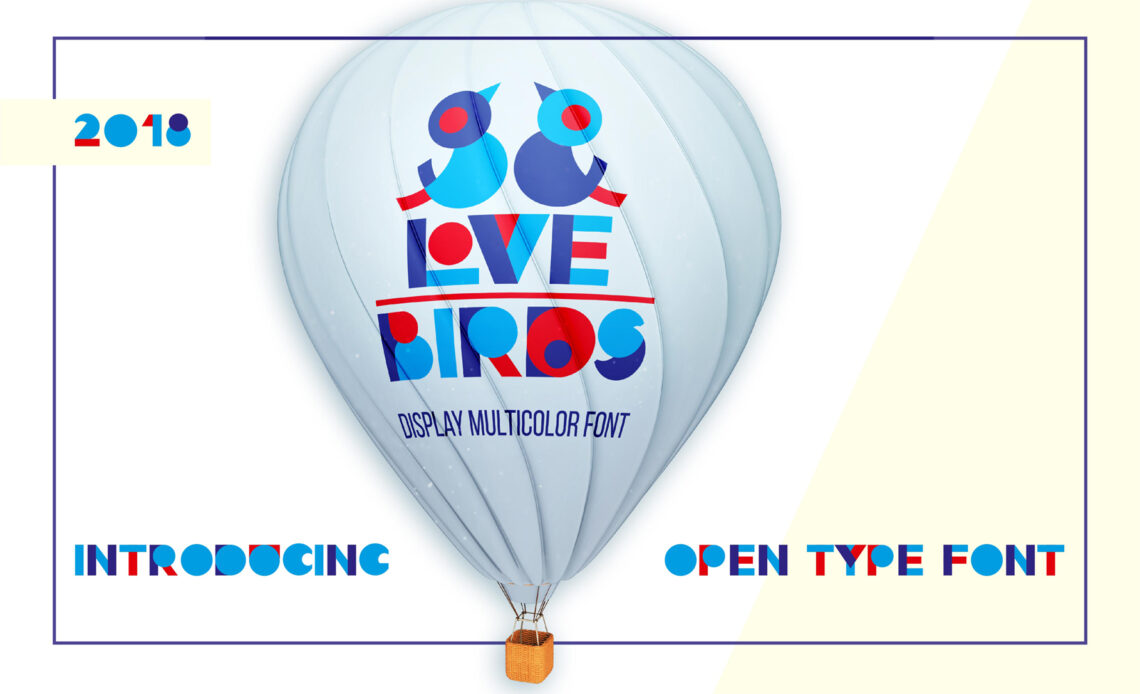
Love Birds Font
Discover Love Birds Font, a Geometric Masterpiece for Contemporary Designs
In a realm of digital aesthetics, where creativity reigns supreme, there exists a font that captivates hearts and ignites imaginations. Love Birds Font, an exquisite geometric display font, stands as a testament to the power of visual expression. With its bold and striking presence, this font is poised to elevate your designs to unprecedented heights.
Immerse yourself in the world of Love Birds Font, a typographic wonder that seamlessly blends sharp angles and curvaceous strokes. Its intricate details and perfectly balanced proportions create a visual symphony that dances across your screen, leaving a trail of enchantment in its wake. Whether crafting logos that demand attention or designing headlines that resonate, Love Birds Font is your artistic ally, ready to transform ordinary words into extraordinary statements.
Crafted with meticulous attention to detail by the visionary z.zajka, Love Birds Font embodies a unique blend of modernity and timeless elegance. Its clean lines and geometric shapes evoke a sense of contemporary sophistication, while its subtle nuances and graceful curves add a touch of classic charm. As a versatile font family, Love Birds effortlessly adapts to a myriad of design projects, from eye-catching posters and branding materials to captivating social media graphics and web designs.
But what truly sets Love Birds Font apart is its versatility as a color font. Unleash your creativity and embrace a spectrum of hues, transforming your designs into vibrant masterpieces. The OTF and SVG file types provide endless possibilities for exploration, allowing you to effortlessly integrate Love Birds Font into your favorite vector editing programs like Adobe Illustrator CC 2018, InDesign CC2018, and Photoshop CC 2017. Experience the joy of seamless color application, turning your designs into breathtaking works of art.
With Love Birds Font, the boundaries of creativity dissolve, and your imagination takes flight. Its ability to fuse form and function captivates audiences, leaving an unforgettable impression that lingers long after the last pixel fades. Discover the transformative power of Love Birds Font and unlock a world of endless possibilities. Embrace its geometric allure and elevate your designs to new levels of brilliance, leaving your audience spellbound and yearning for more.
Immerse yourself in the captivating world of Love Birds Font, where aesthetics and innovation collide. Let its vibrant colors and geometric precision ignite your creativity and redefine the very essence of design. Experience the beauty of typography at its finest and embark on a journey of visual exploration that will leave you breathless.